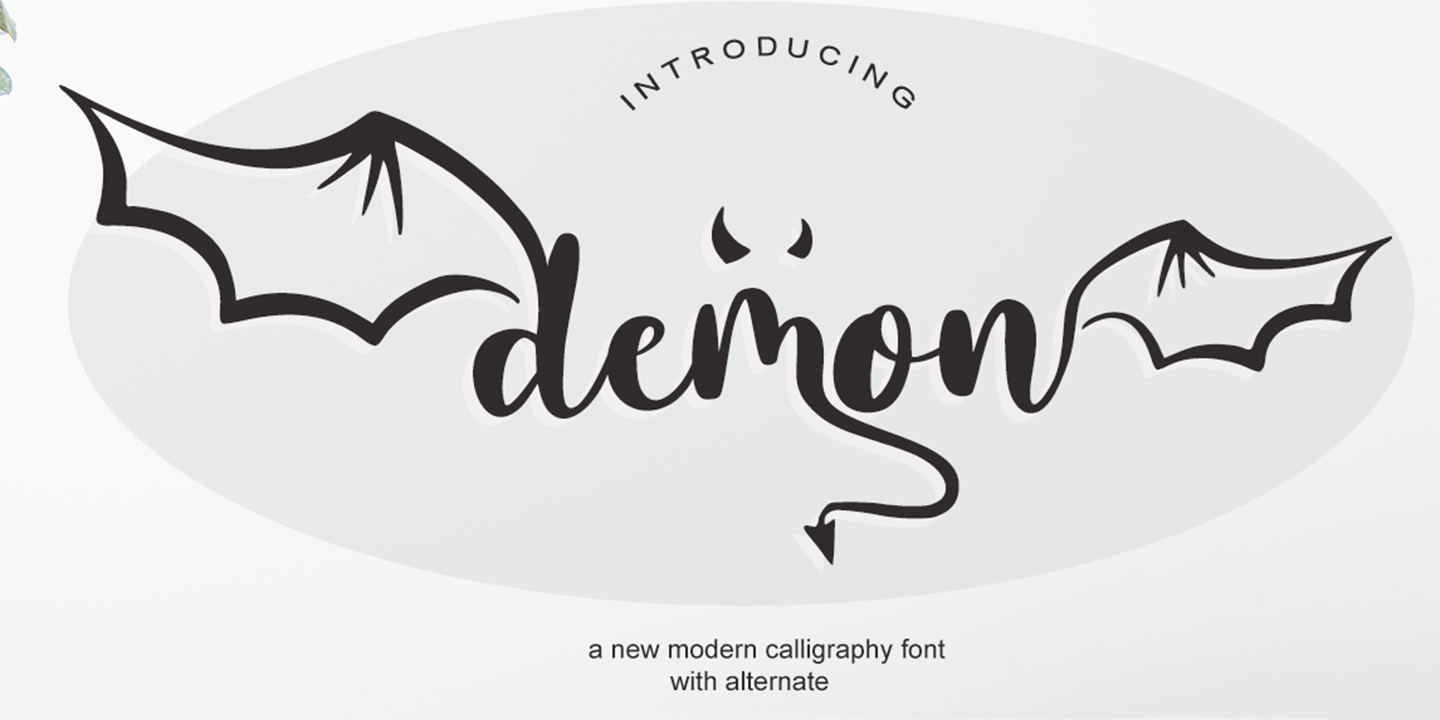
Demon Font is perfect for gothic band branding, horror movie posters, dark fantasy book covers, heavy metal album artwork, haunted attraction signage, dark art exhibitions, gothic fashion labels, supernatural gaming projects, and mysterious social media campaigns. This powerful typeface brings dark intensity and gothic sophistication to both digital and print design applications.
Demon Font is exciting because it embodies the dramatic power and mysterious allure of gothic aesthetics, making it an exceptional choice for designers who want to convey dark elegance with authentic gothic expression. Its bold letterforms and dramatic character provide the perfect combination of dark sophistication and readable functionality, ensuring your projects communicate gothic excellence, dark beauty, and mysterious appeal that resonates with audiences seeking authentic gothic experiences and dramatic visual impact.
The Demon Font family includes dramatic weight variations and gothic elements, featuring regular and bold weights with complementary dark styling, mysterious ligatures, and gothic-inspired decorative flourishes. Each style maintains consistent dark aesthetics while offering flexibility for different gothic applications, allowing designers to create powerful visual systems that reflect dark artistry and gothic sophistication.
Whether you're designing for entertainment brands, gothic fashion, or dark art projects, Demon Font Free Download delivers authentic gothic appeal and dark sophistication that connects with audiences seeking genuine gothic experiences and dramatic visual expression. This premium typeface offers designers the dark elegance and gothic power needed to create designs that communicate mysterious beauty, gothic tradition, and dark excellence effectively. The font's dramatic character makes it perfect for gothic branding, dark campaigns, and mysterious applications where authentic gothic credibility is essential. Download Demon Font today and unleash your creative projects with genuine gothic sophistication and dark typography excellence that defines mysterious design standards.